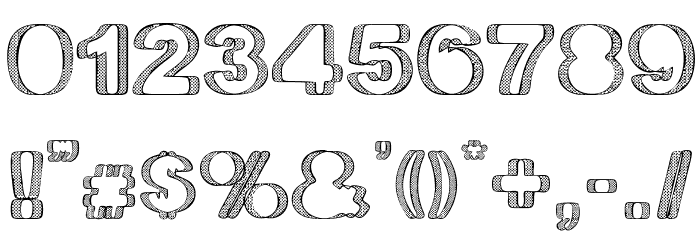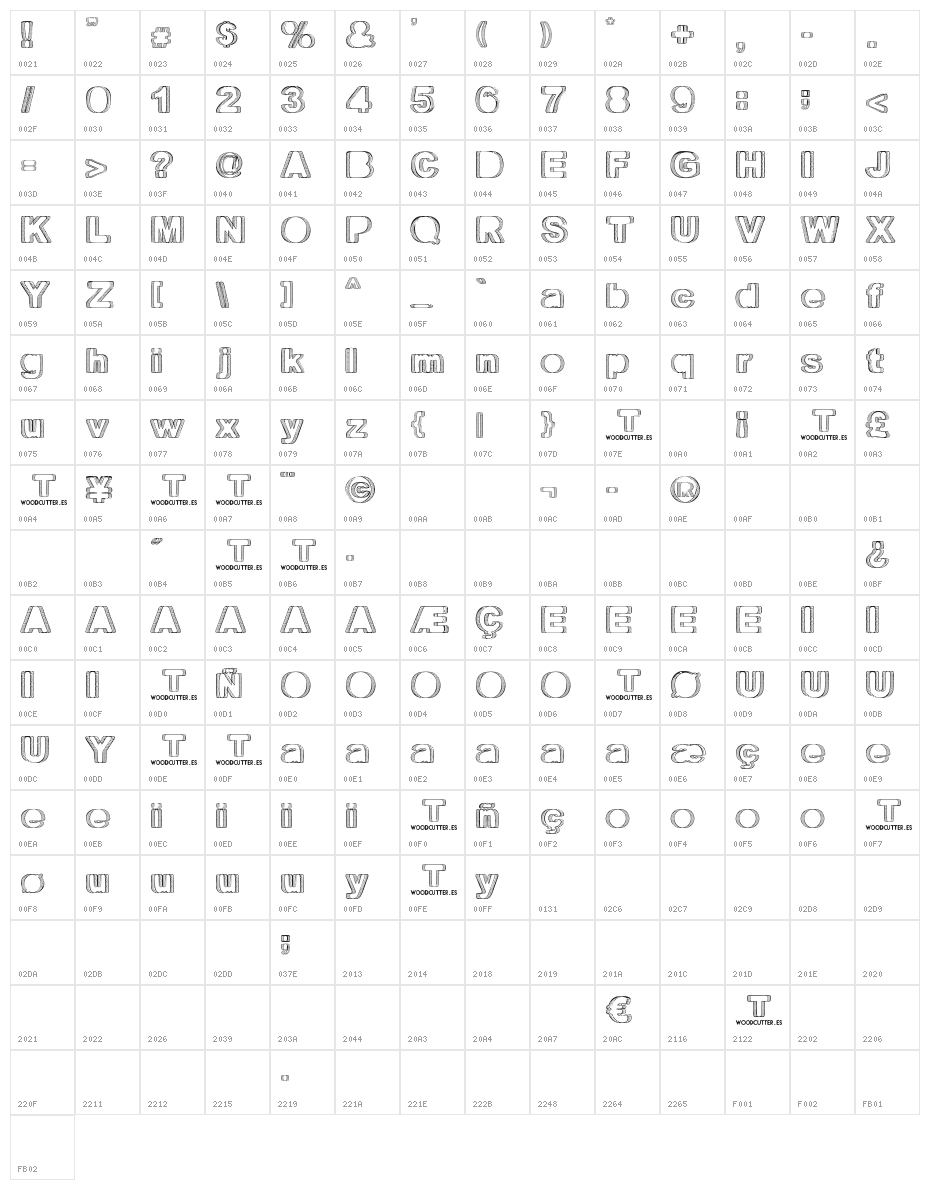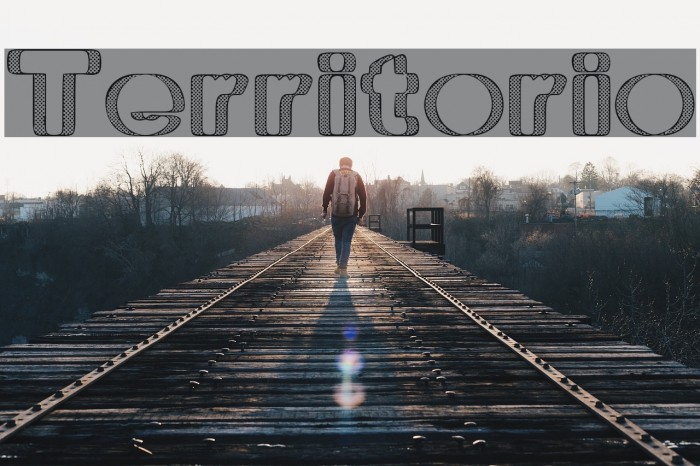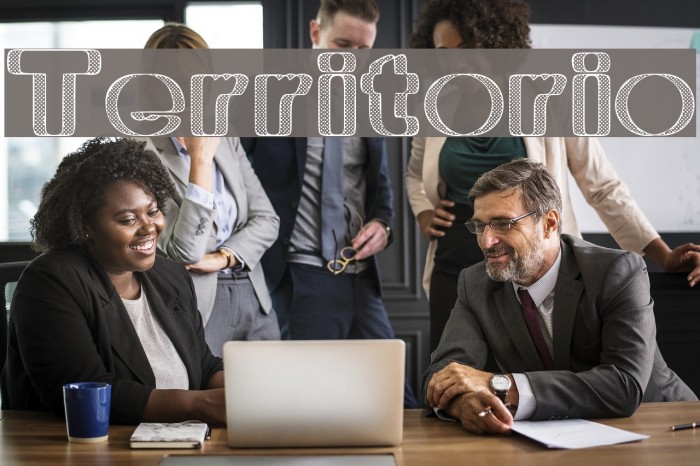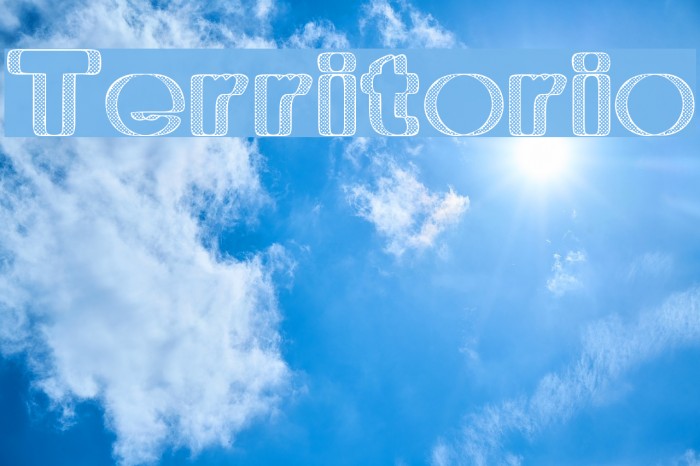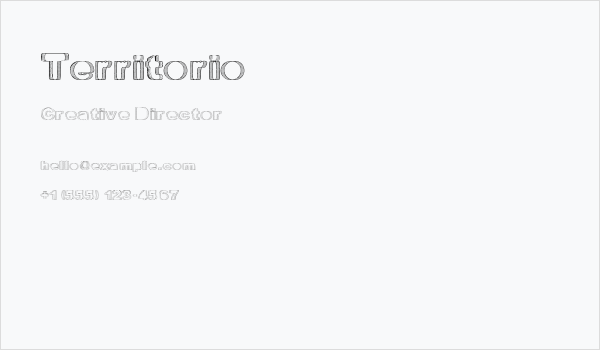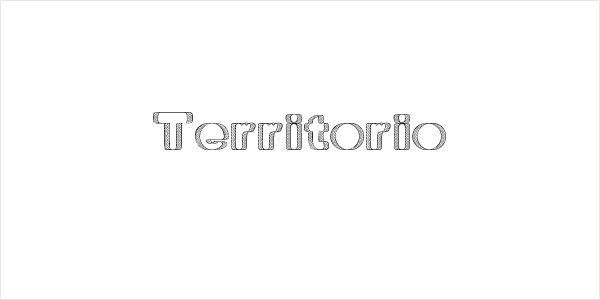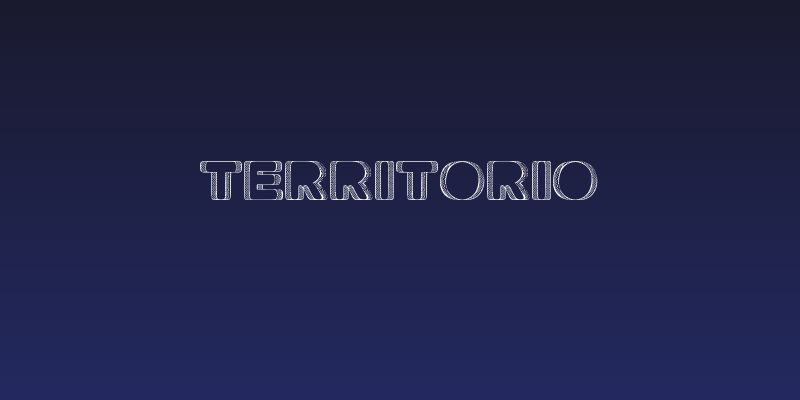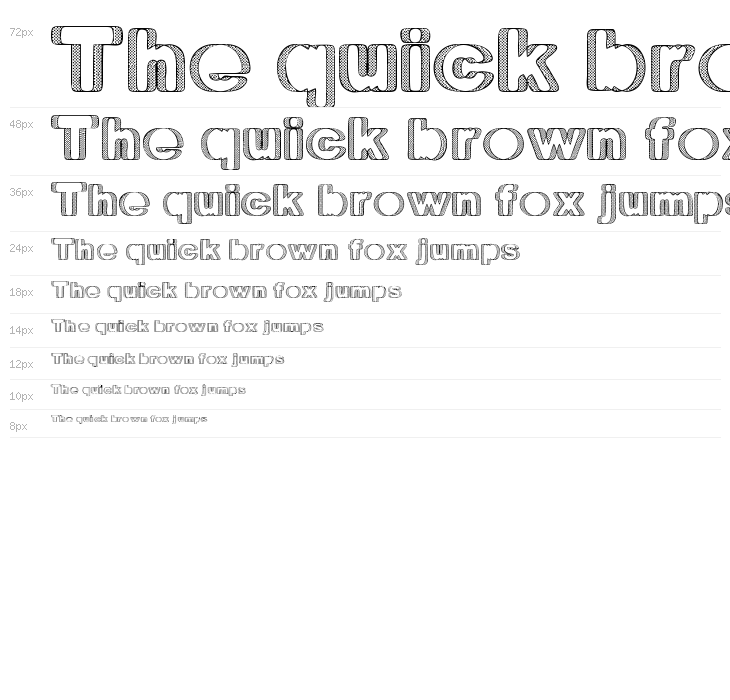
Territorio Font
Territorio Description
This font features a bold, three-dimensional appearance with a unique hatched pattern filling each character. The letters are uppercase and lowercase, with numerals and a variety of special characters. The style is playful and eye-catching, making it ideal for designs that require a strong visual impact. The characters have a consistent width and a slightly condensed form, giving them a compact and sturdy look. The hatched pattern adds texture and depth, enhancing the font's decorative appeal.